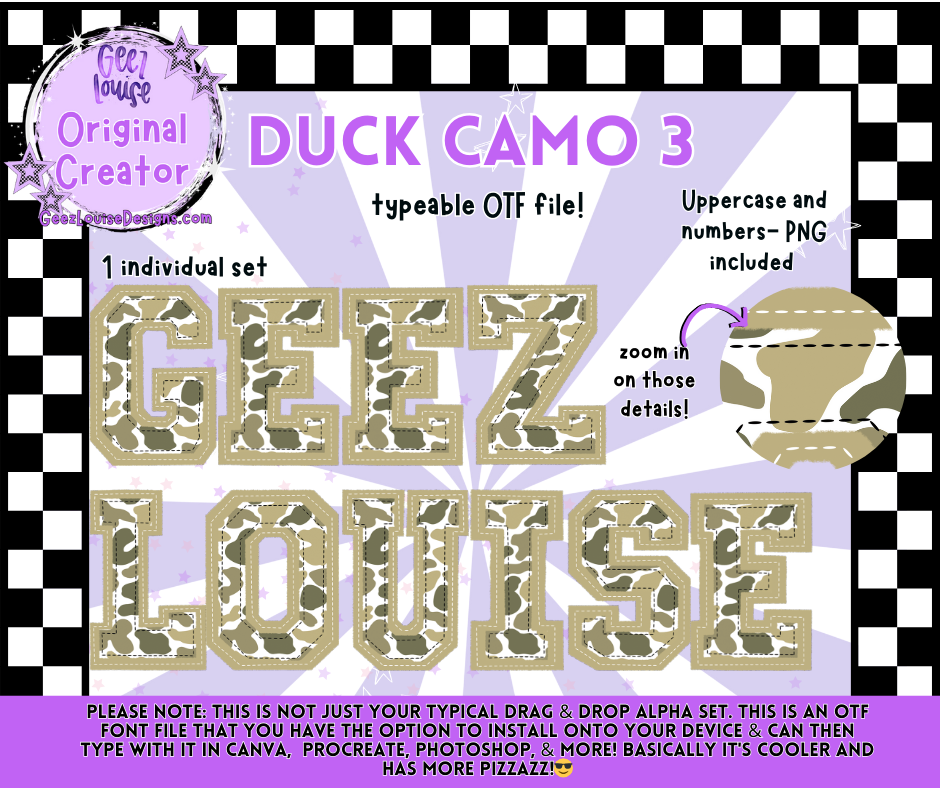
Duck Camo #3— Typeable OTF Font + PNG
Duck silhouettes, checkerboard chaos. Duck Camo 3 is stitched for the maximalists. Orange and black camo ducks meet bold type in a font that’s ready to headline your weirdest merch.
• Perfect for mascot lore, caption challenges, and alt drops
• Built to clash, layer, and command attention